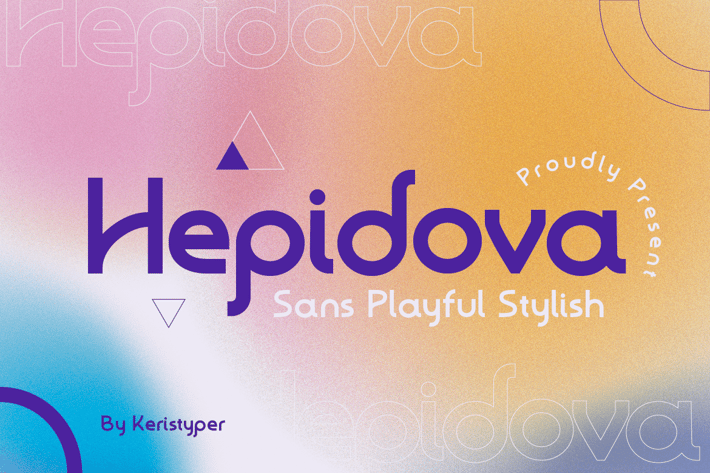
Hepidova Font
Hepidova playful sans serif is a fun font design that refers us to the style of modern sans serif. This font is good for logo design, Social media, Movie Titles, Books Titles, short text even long text letters, and good for your secondary text font with sans or serif.
Standard Uppercase & Lowercase
Multilingual : ä ö ü Ä Ö Ü ß ¿ ¡
Alternate & Ligature